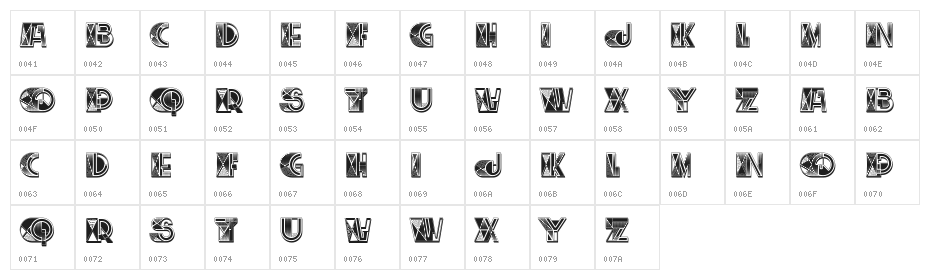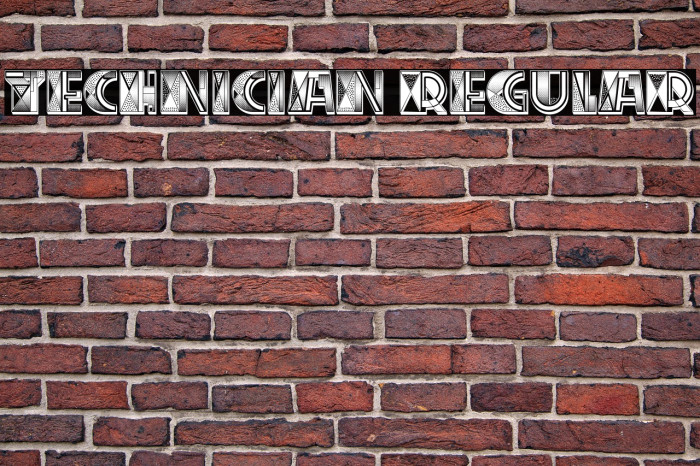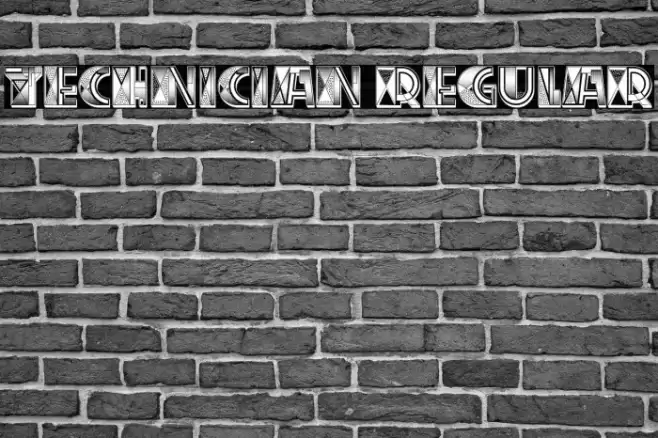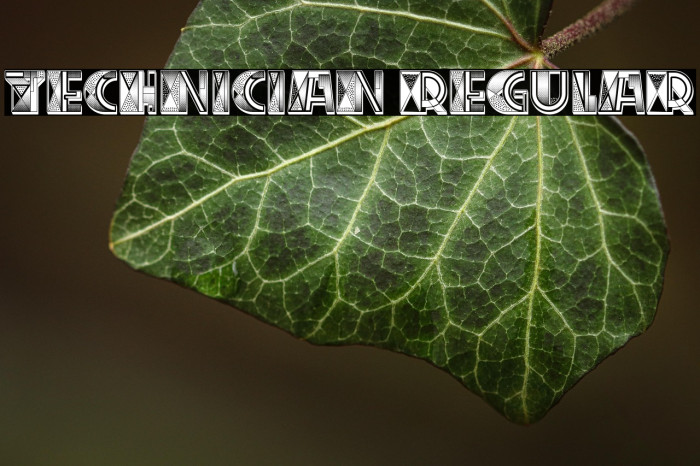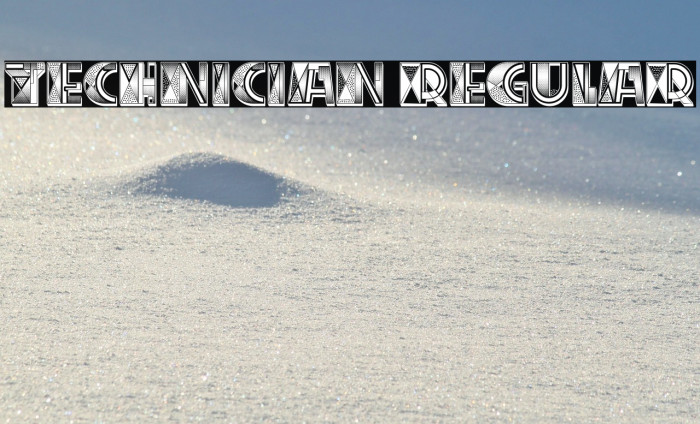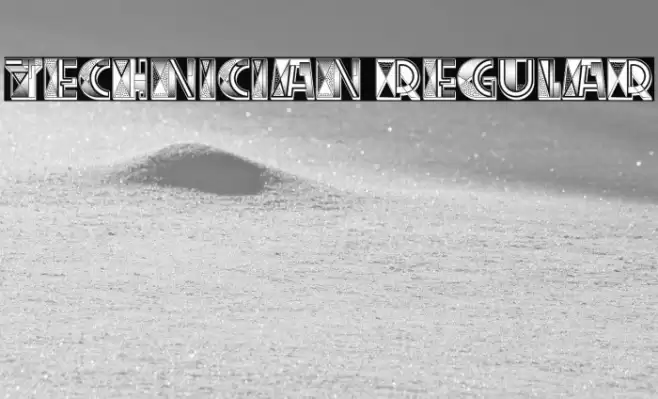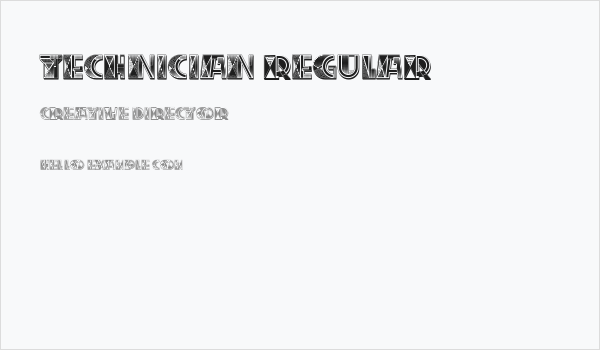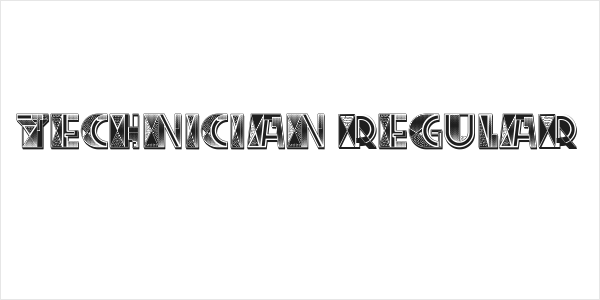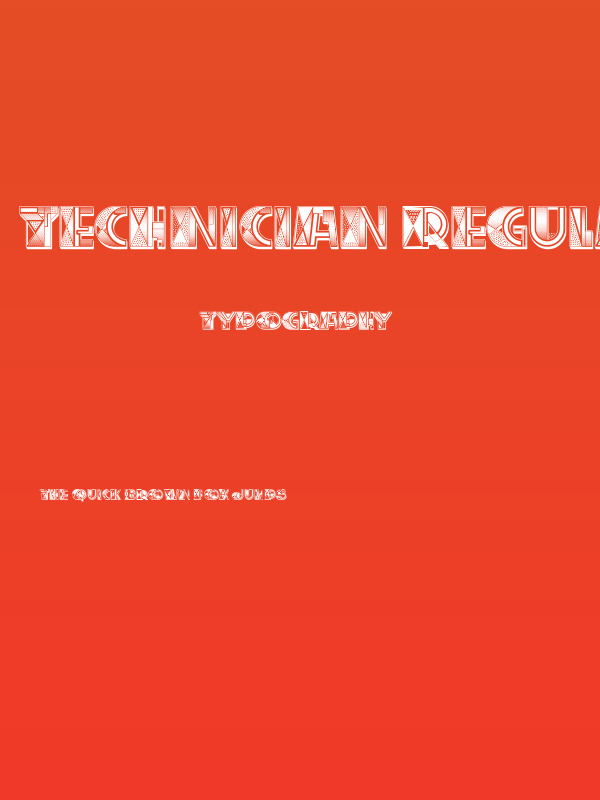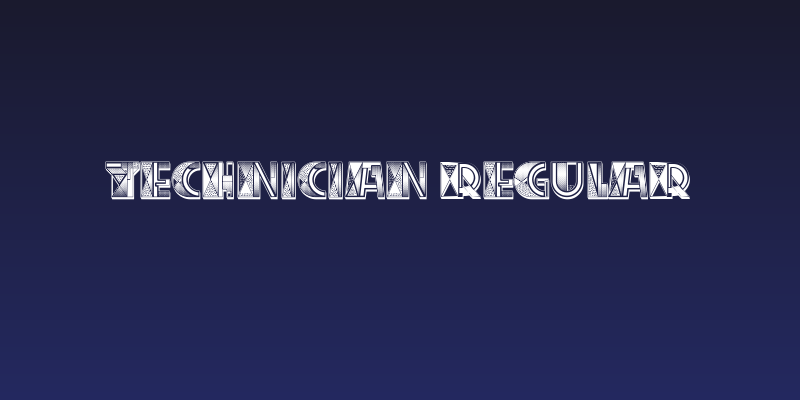
Technician Regular Font
Technician Regular Description
This font features a bold and geometric design with intricate patterns filling each character. The letters are constructed with a combination of solid and dotted textures, creating a dynamic and visually striking appearance. The use of sharp angles and clean lines gives it a modern and futuristic feel. The uppercase letters are uniform in height, while the overall style is consistent across the alphabet. The font's unique design makes it suitable for projects that require a strong visual impact.
| Proposed Projects | Ideal for branding, posters, album covers, and any design needing a bold statement. |